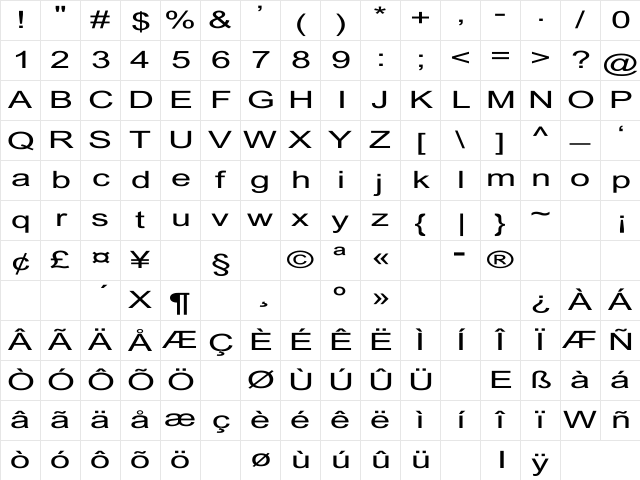
Dixon Ex Regular
Design Context for Dixon Ex
Dixon Ex is a composed and adaptable typeface that performs quietly and consistently across a wide range of design contexts.